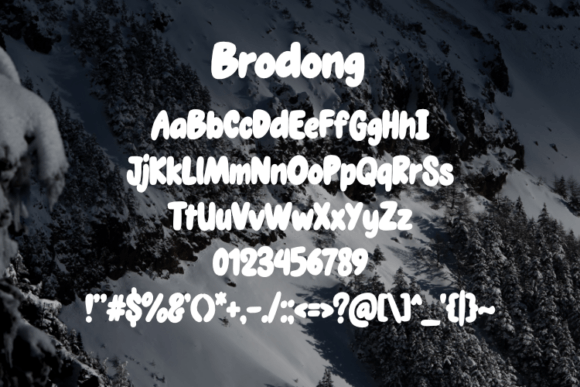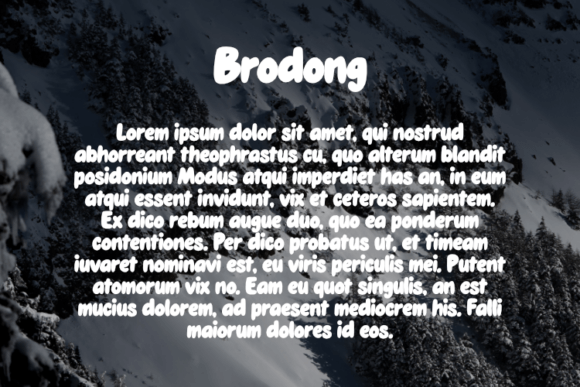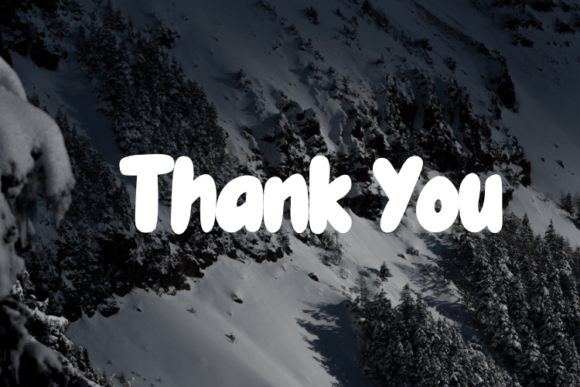
Unlock Endless Design Possibilities with Brodong Font
Are you tired of using the same old fonts for your apparel designs? Do you want to take your creations to the next level and make them stand out from the crowd? Look no further than Brodong Font, the ultimate typeface for designers and crafters. In this article, we’ll introduce you to the world of Brodong and explore its features, benefits, and uses.
Introducing Brodong Font
Brodong Font is a versatile and dynamic typeface designed to breathe life into your apparel designs. Whether you’re creating t-shirts, hoodies, or a wide array of other products, Brodong adjusts flawlessly to all design styles and software. This means you have unparalleled freedom to create and experiment with different looks and feels, without worrying about font compatibility issues.
Key Features of Brodong Font
- Versatility: Brodong Font is designed to work seamlessly with various design styles and software, making it the perfect choice for designers and crafters.
- Unparalleled Freedom: With Brodong, you have the freedom to create and experiment with different designs, without worrying about font compatibility issues.
Benefits of Using Brodong Font
So, why choose Brodong Font for your design needs? Here are just a few benefits you can expect:
- Enhanced Creativity: With Brodong, you can unleash your creativity and experiment with different design styles, colors, and patterns.
- Time-Saving: The font’s versatility and compatibility with various software save you time and effort, allowing you to focus on the creative process.
- Professional Results: Brodong Font helps you achieve professional-looking results, even if you’re a beginner or intermediate designer.
Uses of Brodong Font
Brodong Font is perfect for a wide range of design applications, including:
- Apparel Design: T-shirts, hoodies, sweatpants, and more.
- Product Design: Mugs, phone cases, tote bags, and other products.
- Graphic Design: Posters, flyers, brochures, and other marketing materials.
Tips for Getting the Most Out of Brodong Font
To get the most out of Brodong Font, here are a few tips:
- Experiment with Different Styles: Try out different design styles, colors, and patterns to find what works best for your brand or project.
- Pair with Other Fonts: Combine Brodong with other fonts to create unique and interesting typography.
In conclusion, Brodong Font is the perfect choice for designers and crafters looking to take their creations to the next level. With its versatility, convenience, and unparalleled freedom to create, Brodong ensures your design process remains seamless and efficient. Embark on a journey of design innovation with Brodong Font and discover a world of endless possibilities.